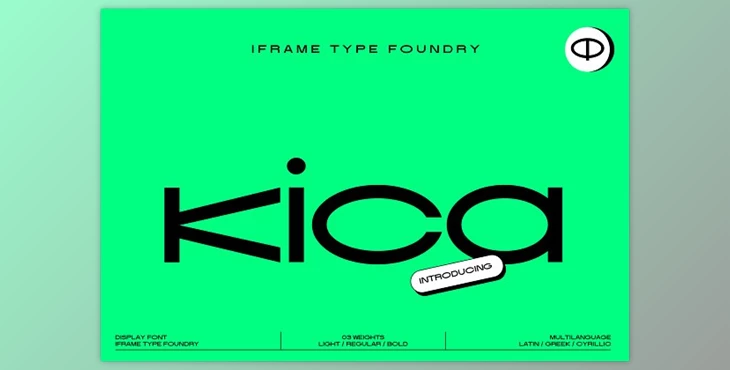
Kica Extended Font Family: Introducing IF Kica, a modern display typeface that combines clean lines, bold strokes, and geometric shapes to create a strong visual impact. With an extended font family comprising three weights (Light, Regular, Bold) and over 980 glyphs, IF Kica offers versatility and a contemporary aesthetic suitable for various design projects.
Design Characteristics:
IF Kica's letterforms are meticulously constructed with a modern, minimalist approach, featuring straight edges and sharp angles. This design philosophy ensures a sophisticated and professional appearance, making it an excellent choice for branding, advertising, and various design applications.
Legibility and Versatility:
Despite its bold and impactful design, IF Kica remains highly legible even at smaller sizes. The well-designed letterforms and ample spacing contribute to its readability. The typeface offers a range of weights, providing flexibility for different design needs.
Applications:
If Kica is versatile, it is perfect for creating eye-catching headlines, logos, and other graphic designs. Its bold and confident appearance is crafted to leave a lasting impression, enhancing the visual impact of any project.
Elevate your design projects with IF Kica, a stylish and modern typeface that combines contemporary aesthetics with functional versatility.
Some great features of Kica Extended Font Family:
- Three weights: Light, Regular, Bold
- Extended Font Family
- Over 980 glyphs
- Character set A-Z, Uppercase & Lowercase
- Numerals & Punctuation
- Multilingual support
- Language support: Latin, Greek, Cyrillic